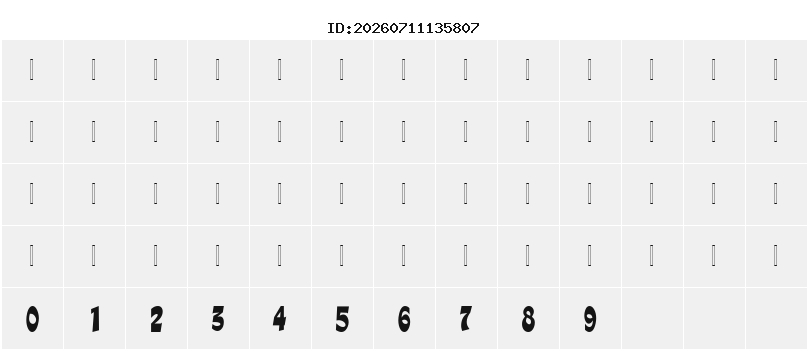
Mariam Linotype Preview
• Font Name: Mariam Linotype
• Font ID: LinotypeGmbH: Mariam: 2006
• Full Font Name: Mariam Linotype
• Version: Version 1.10
• PostScript Name: Mariam
• Character Count: 327
• Designer: Ismet Chanbour
• Manufacturer: Linotype GmbH
• Description: Mariam is a traditional-style Arabic headline face designed by the famous Arabic type designer Ismet Chanbour, who also designed Al Harf Al Jadid - another highly successful typeface from the Linotype Library. Mariam is characterised by certain design features which contribute to its stylistically lively, yet graceful appearance: downward-pointing tails combining with the swinging finial strokes of certain characters, and the various "cut-away" effects. This headline face successfully offers a wide range of applications, from very large, bold poster-size work to use at 18 point for emphasis in text work. Available as in the OpenType format, Miriam incorporates the Arabic codepage (CP 1256), and supports Arabic and Persian. It also includes both tabular Arabic and Persian numerals, as well as Latin figures and complete punctuation.
Mariam Linotype.ttf is a modern, elegant sans-serif font designed for ultimate readability and visual harmony. Perfect for branding, headlines, web design, and print materials.